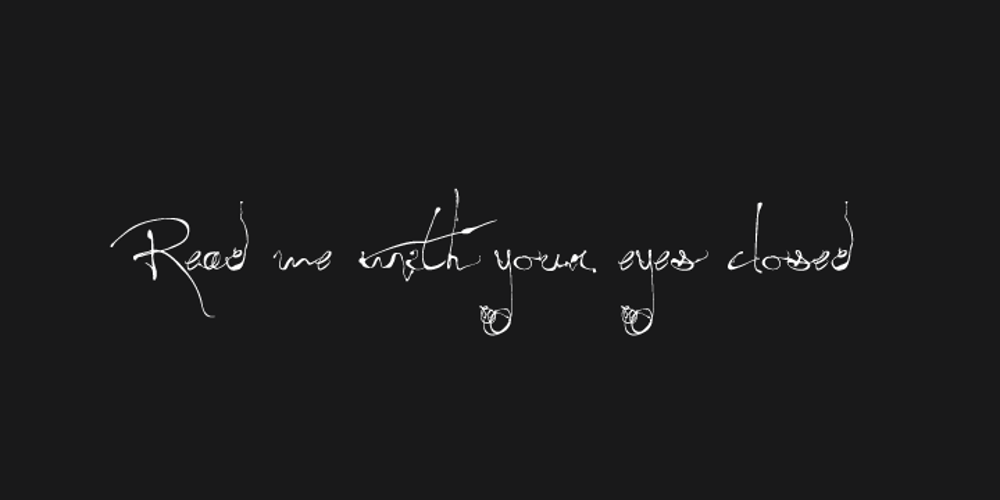
Reading Frequency
Reading Frequency font
Reading Frequency Font Family was designed by Vlad Rudakov and published by Vladvertising. Reading Frequency contains 1 styles and family package options. Ever wonder what language looks like? This type decided to dive into this idea… how audible and visual forms play with each other. The forms you see also have been waterjet-cut out of stainless steel sheets. With these physical forms, one day in a recording studio and a mallet in hand later… we get this. Link to Audio Files: http://vladrudakov.com/files/Reading%20Frequency%20Audio.zip (If you use for samples– have fun, just shoot me an email w/ final product) vlad (at) vladvertising.com